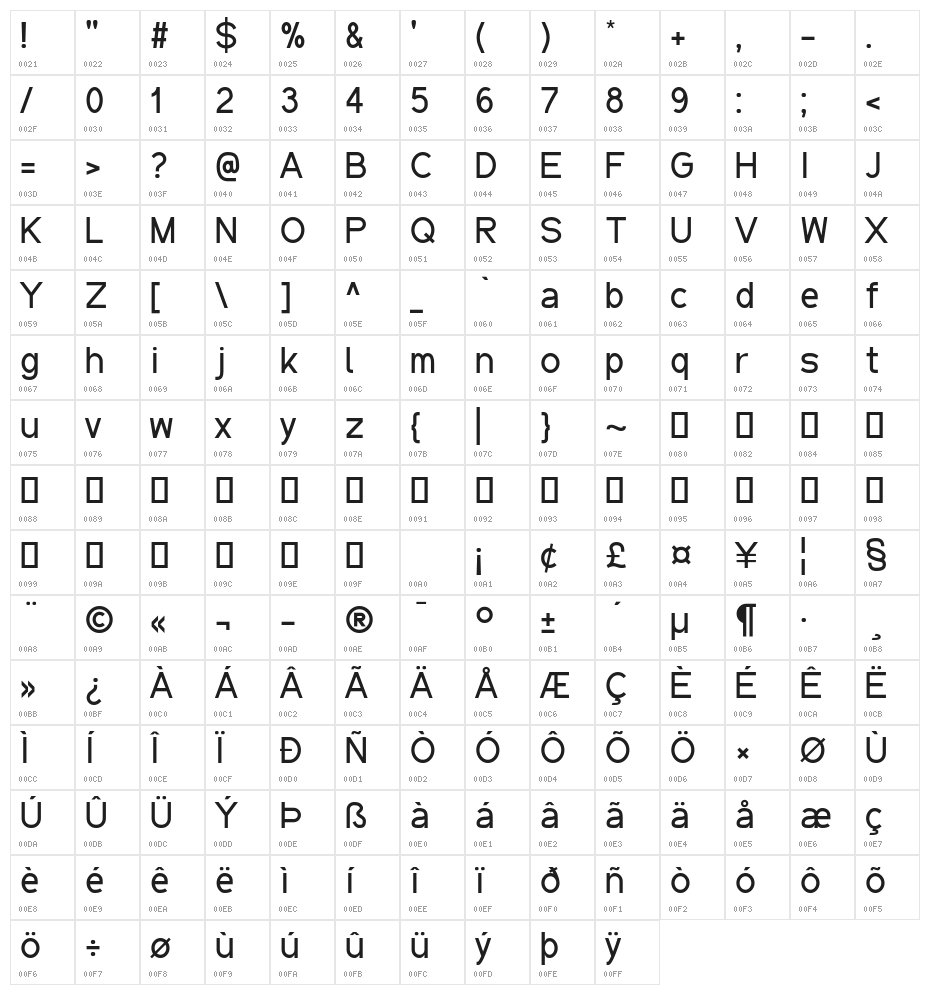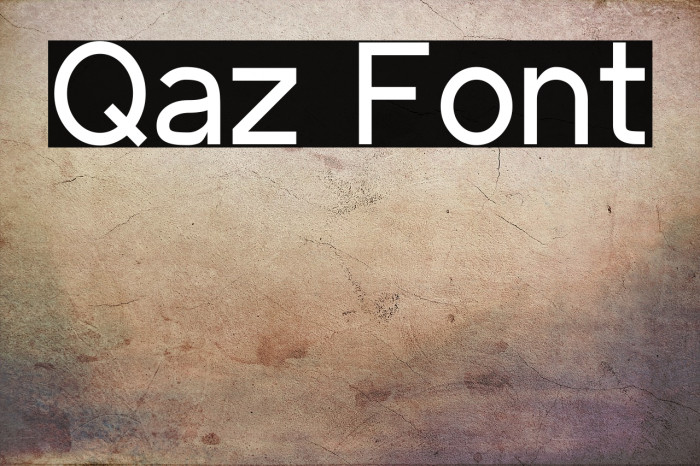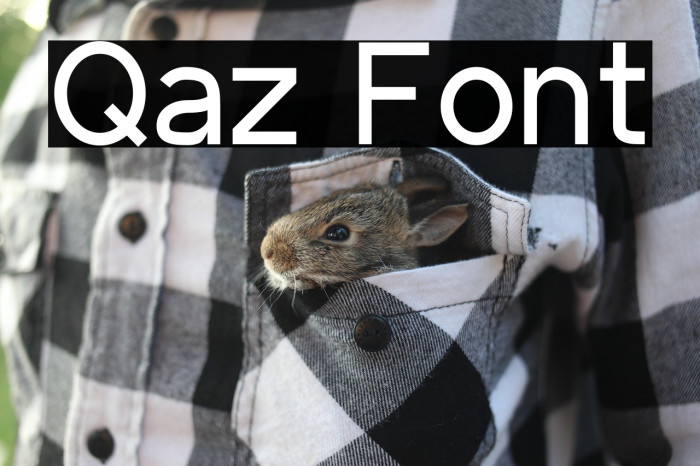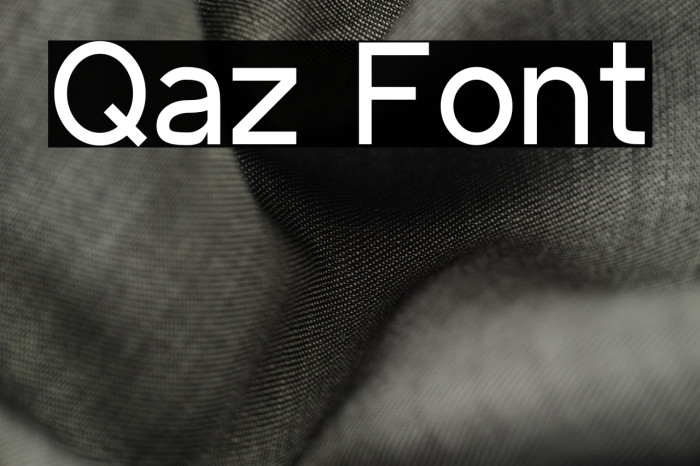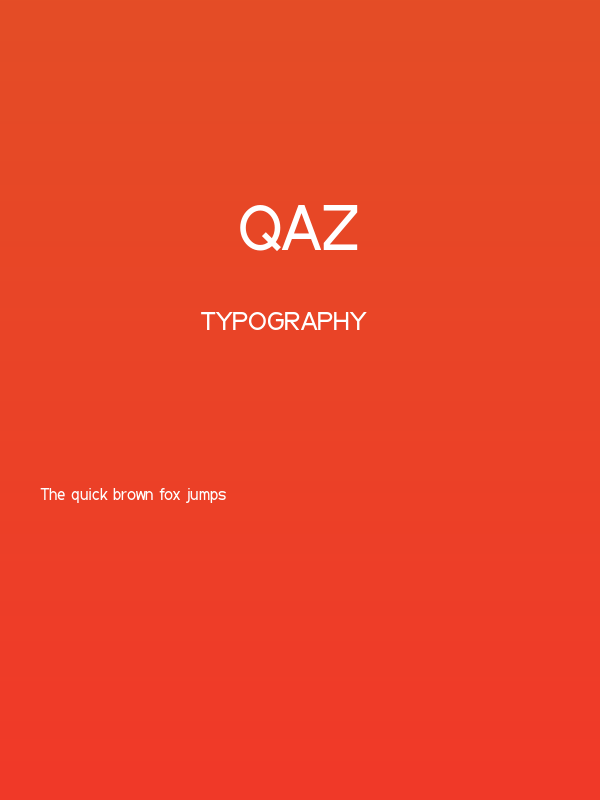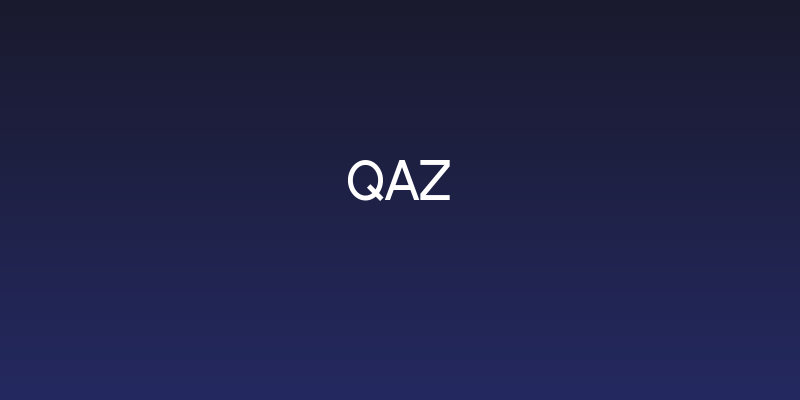
Qaz Font
Qaz Description
This font features a clean and modern sans-serif design, characterized by its simple and straightforward letterforms. The uppercase and lowercase letters maintain a consistent stroke width, contributing to a balanced and harmonious appearance. The numerals are clear and legible, making them suitable for various applications. Special characters are well-defined, enhancing the font's versatility. The overall design is minimalistic, with a focus on readability and functionality, making it ideal for both digital and print media.